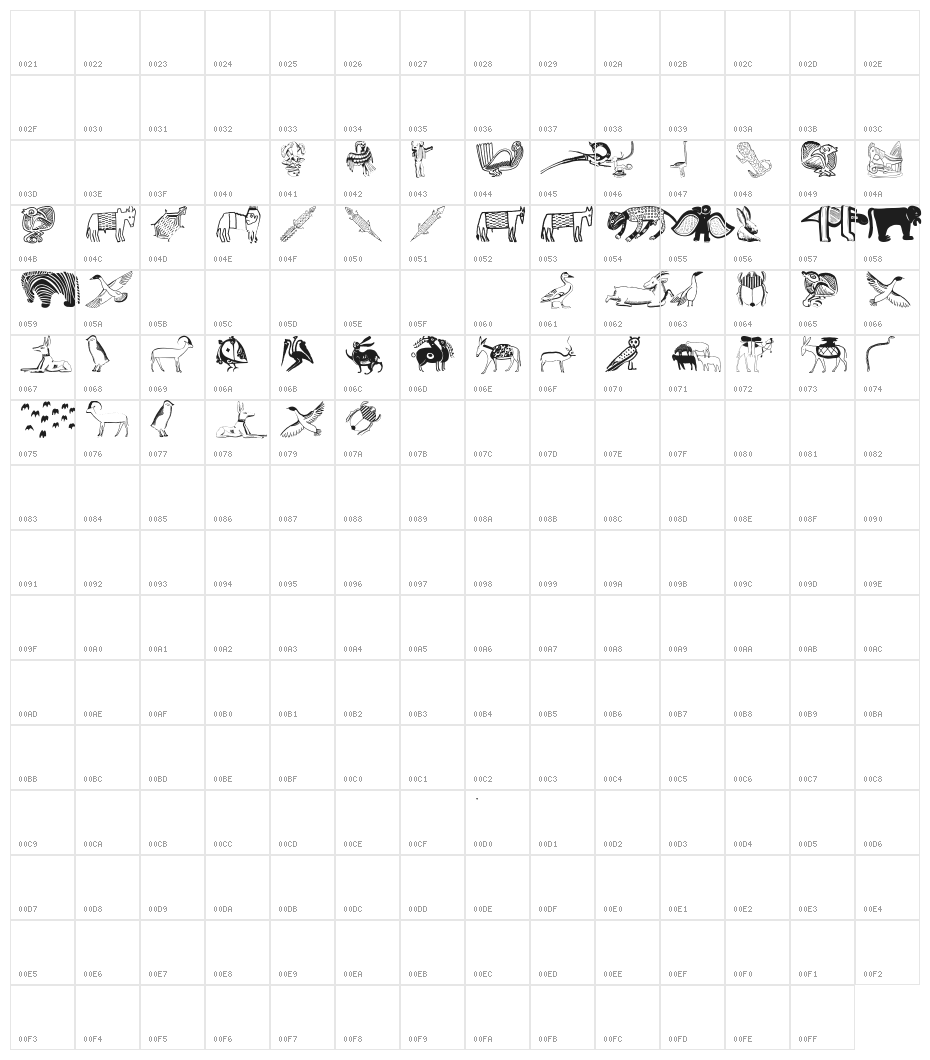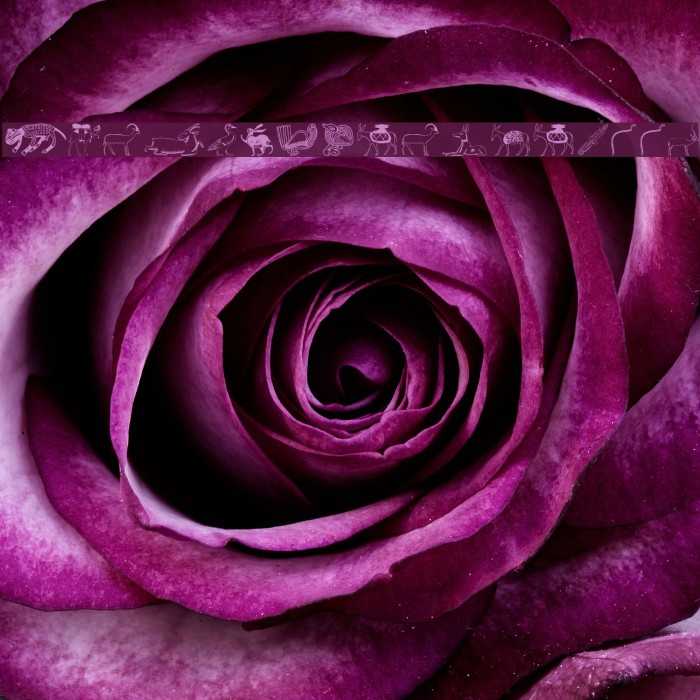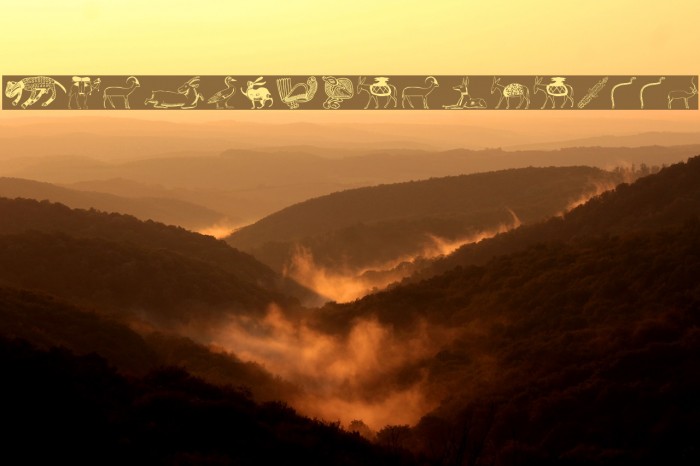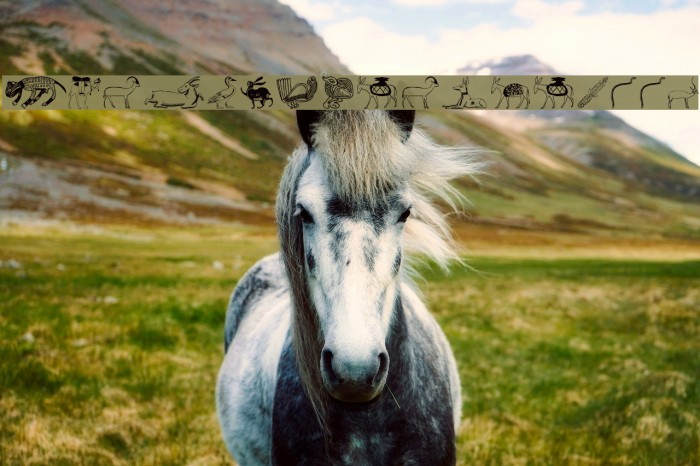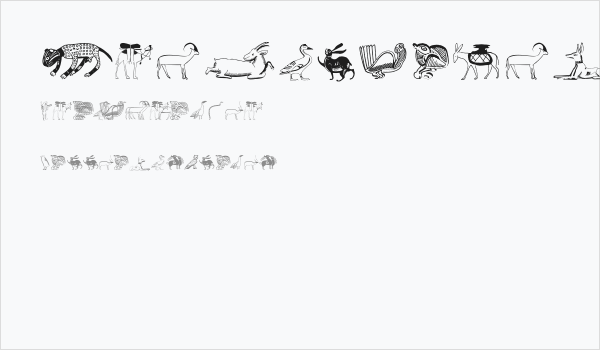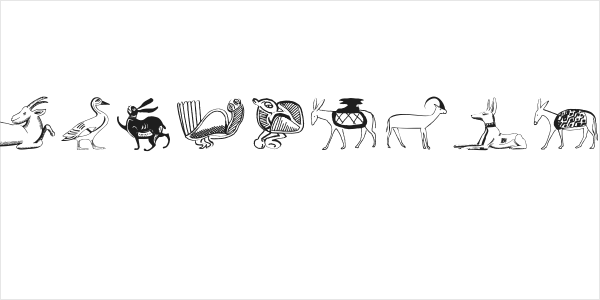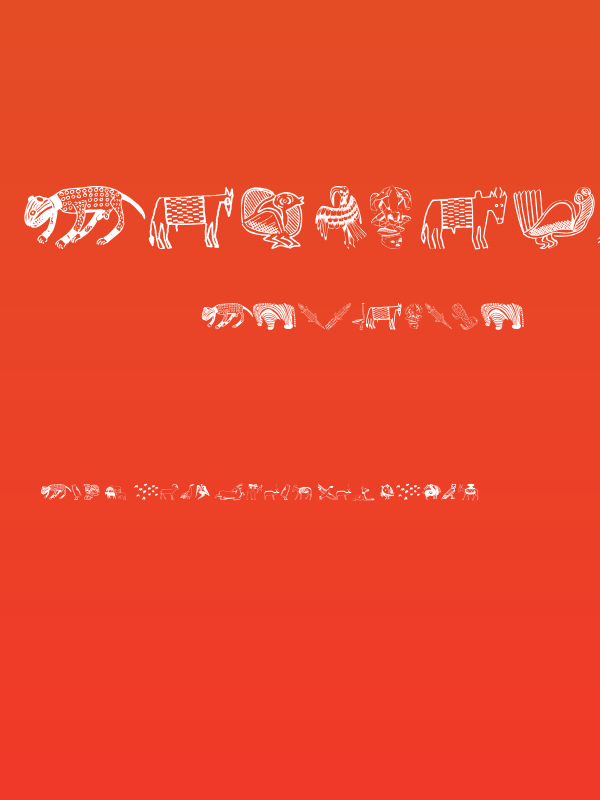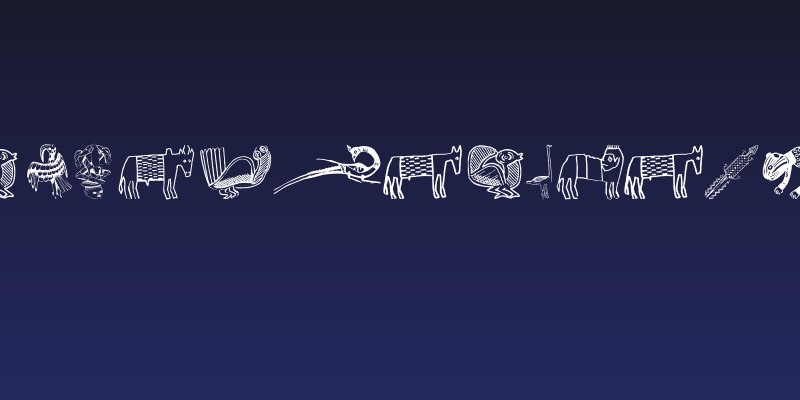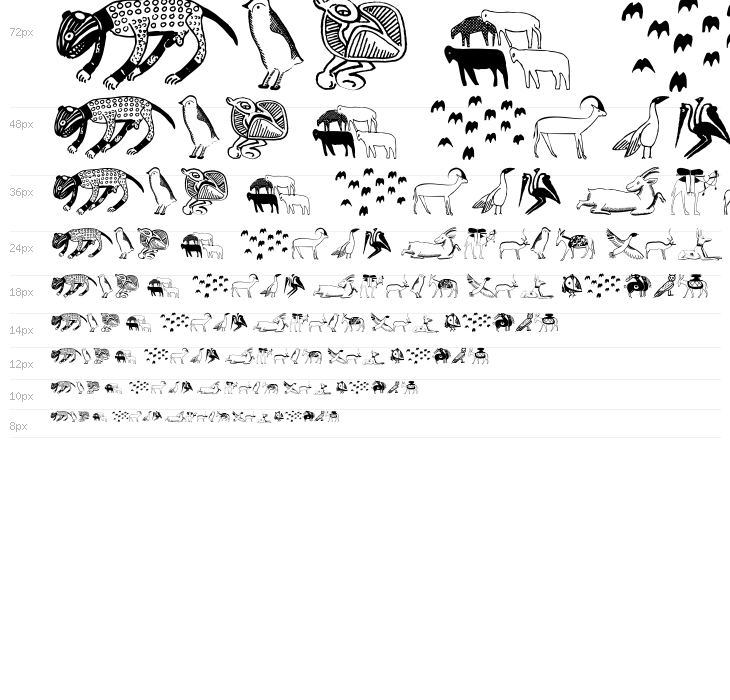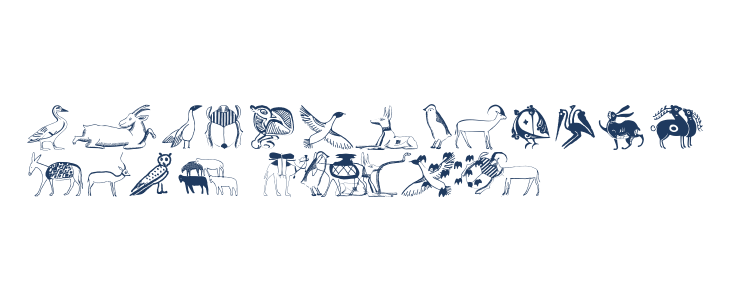
TribalDesignsOtto Font
TribalDesignsOtto Description
This design set features a collection of tribal-inspired illustrations, each representing a unique animal or abstract figure. The characters are intricately detailed, showcasing a variety of patterns and textures that reflect traditional tribal art. The designs are bold and expressive, with a strong emphasis on line work and symmetry. Each illustration is distinct, offering a diverse range of visual elements that can be used to create a cohesive tribal theme. The set includes a mix of animals and abstract forms, each rendered in a way that highlights the cultural and artistic heritage of tribal design.
| Use Case | Logos, Art projects, Cultural displays |
| Proposed Projects | Ideal for cultural projects, educational materials, art installations, or themed event decorations. |